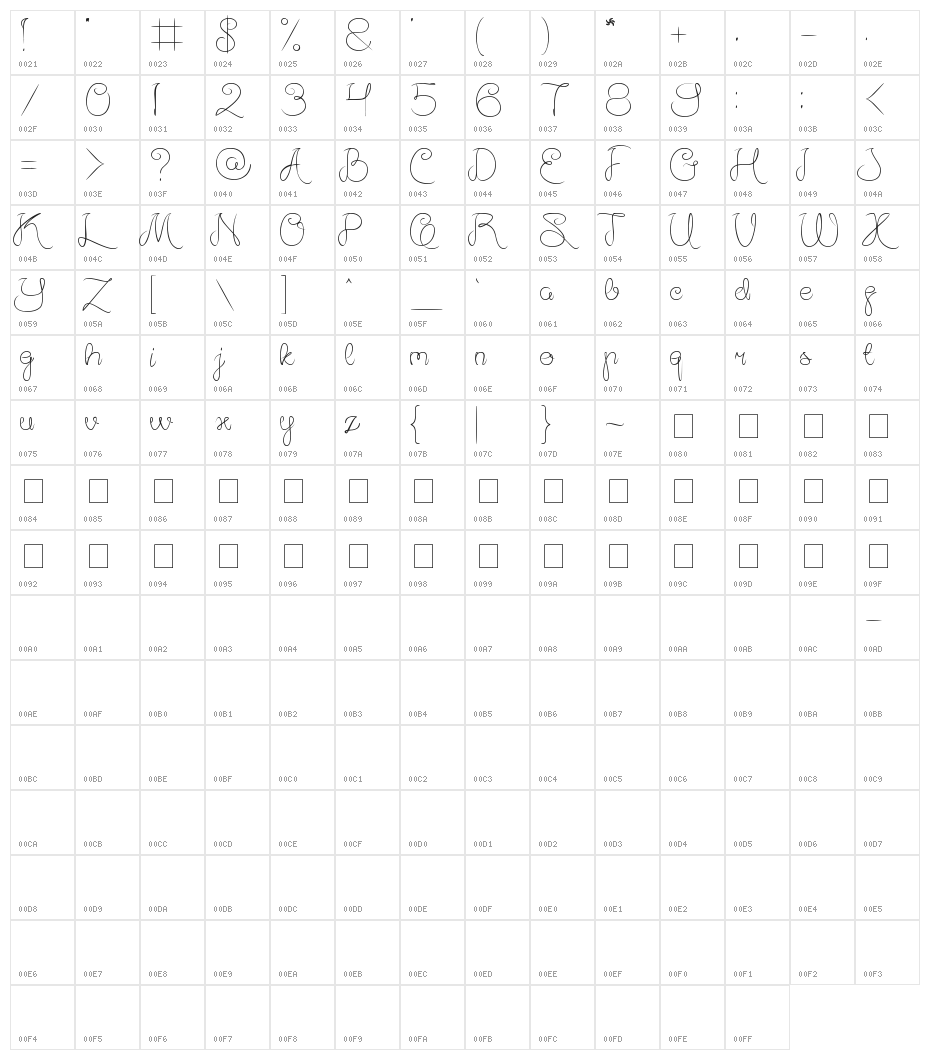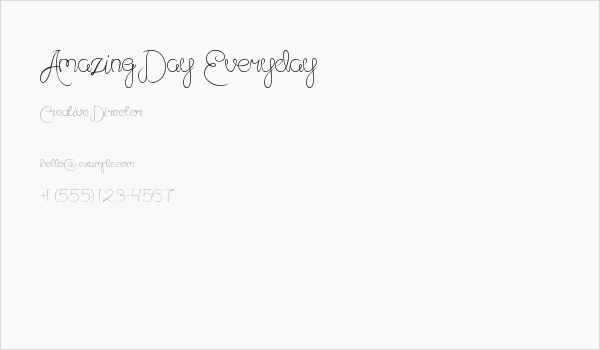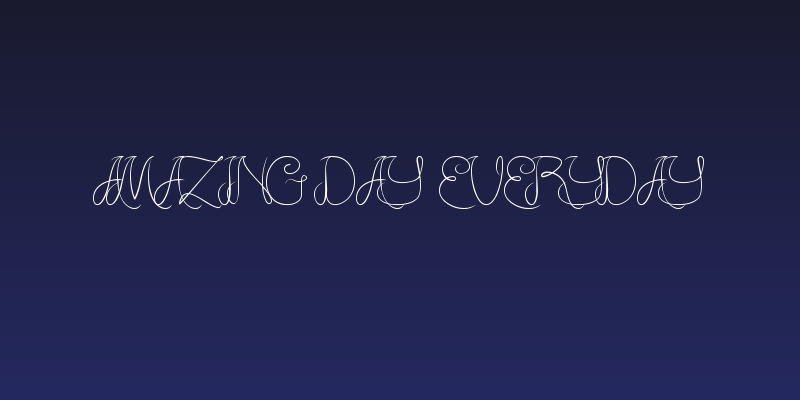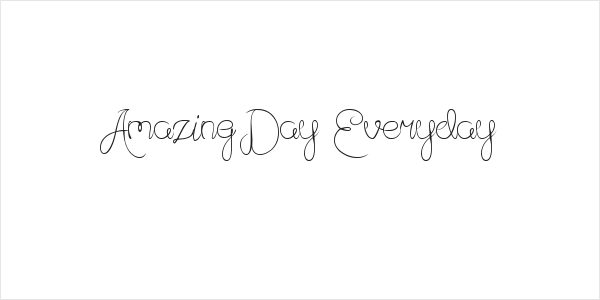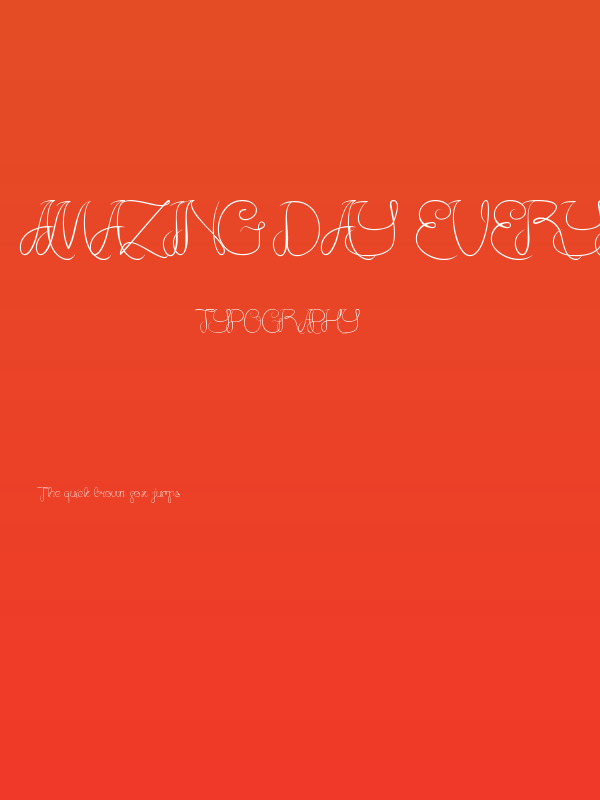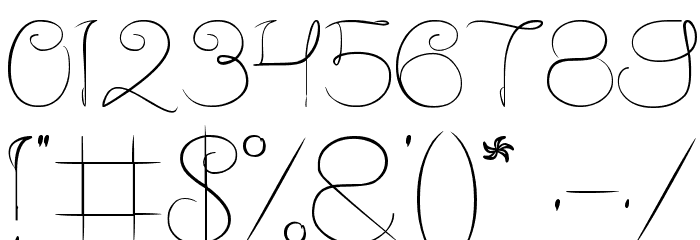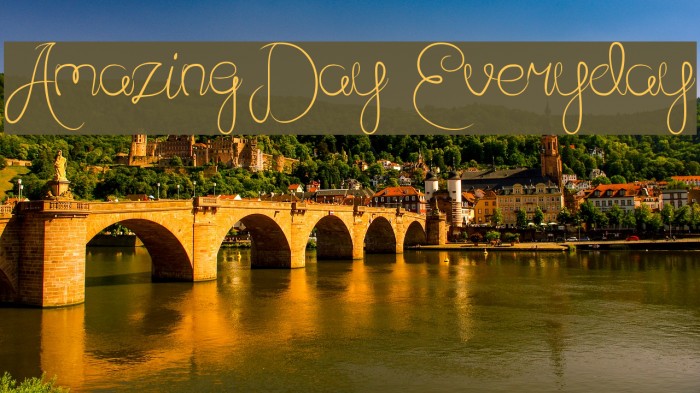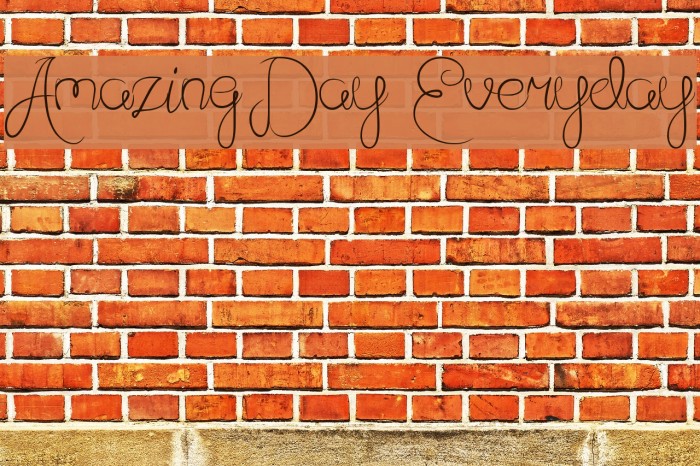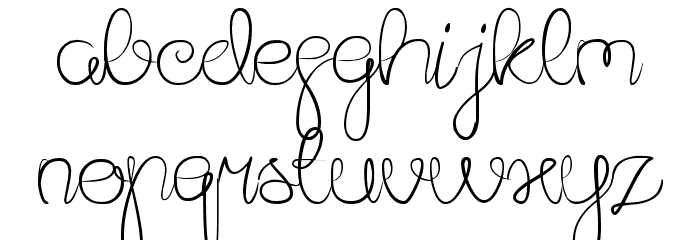
Amazing Day Everyday Font
Amazing Day Everyday Description
This font is a whimsical and elegant script style that features flowing, interconnected letters with a playful yet sophisticated flair. The uppercase letters are tall and graceful, with loops and curves that give them a sense of movement. The lowercase letters maintain a consistent style, with smooth transitions and a slightly more compact form. Numbers and special characters are designed to match the overall aesthetic, with similar loops and curves. The font's thin strokes and delicate design make it ideal for projects that require a touch of elegance and creativity.
| Use Case | Logos, Invitations, Decorative text |
| Proposed Projects | Ideal for wedding invitations, greeting cards, personal branding, and decorative projects. |